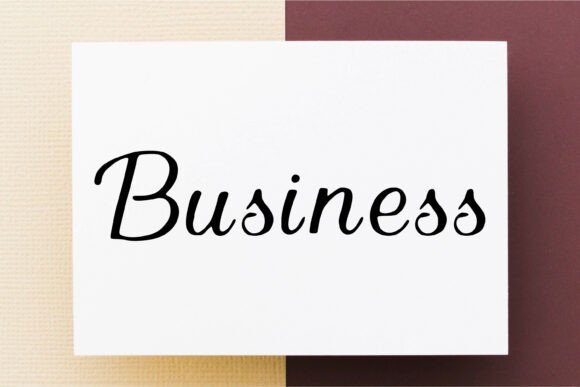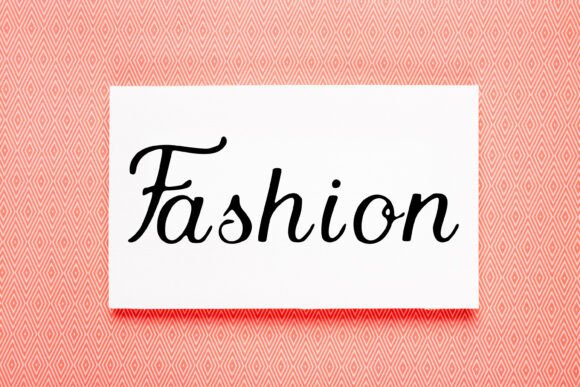
Introduction to Frosted Wish Font
As you sit down at your desk, surrounded by scraps of paper, empty coffee cups, and a dash of creative chaos, the question echoes in your mind: what’s the perfect font to elevate my design? You’ve searched far and wide for the perfect combination of elegance and whimsy, but nothing seems quite right. That’s when you stumble upon the Frosted Wish Font, a game-changing addition to your design arsenal.
With its soft curves, flowing lines, and dreamy winter-inspired personality, the Frosted Wish Font is a design resource like no other. Its refined handwritten feel brings warmth and uniqueness to every layout, making it the perfect companion for any creative project. Whether you’re designing holiday prints, romantic projects, or personalized gifts, this high-quality font is sure to deliver the desired charm and sophistication.
Key Features of Frosted Wish Font
- High-quality, elegant design suitable for creative projects and designs requiring a touch of sophistication.
- Includes a range of glyphs and characters, making it an ideal design resource for a variety of creative applications.
- Designed with a unique, frosted aesthetic that adds a touch of magic to any design.
Honest Review: Frosted Wish Font
I recently stumbled upon the Frosted Wish Font, and I must say it’s been a game-changer for my creative projects. The high quality design is a perfect addition to any design resource.
- ✨ Beautiful, delicate lines that add a touch of elegance to any design
- ✨ Great for use with transparent backgrounds, which allows for seamless integration into any design
- ⚠️ Limited font styles available, which might not be suitable for every design project
- ⚠️ Not as versatile as some other fonts I’ve used in the past, which can make it difficult to use in certain contexts
Overall, I’m really impressed with the Frosted Wish Font. It’s a great addition to any design resource, and I’ve already used it in several of my projects. While it may not be perfect, the benefits far outweigh the limitations.
Frosted Wish Font
The Frosted Wish Font is a unique and beautiful design resource that can add a touch of elegance to your creative projects. This high-quality font features a transparent background, making it easy to use in various design applications.
To get the most out of the Frosted Wish Font, experiment with different font sizes, colors, and combinations. You can also use the font in conjunction with other design elements, such as graphics and images.
The Frosted Wish Font is perfect for a variety of creative projects, including wedding invitations, birthday cards, and social media graphics. You can also use the font to create beautiful typography for your blog or website.